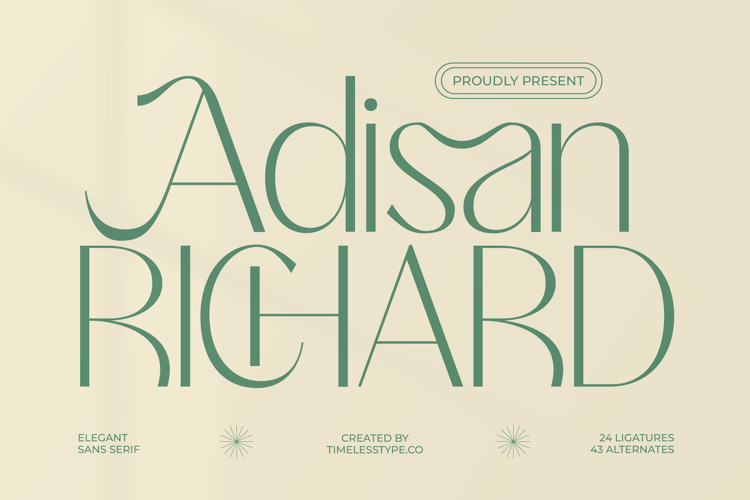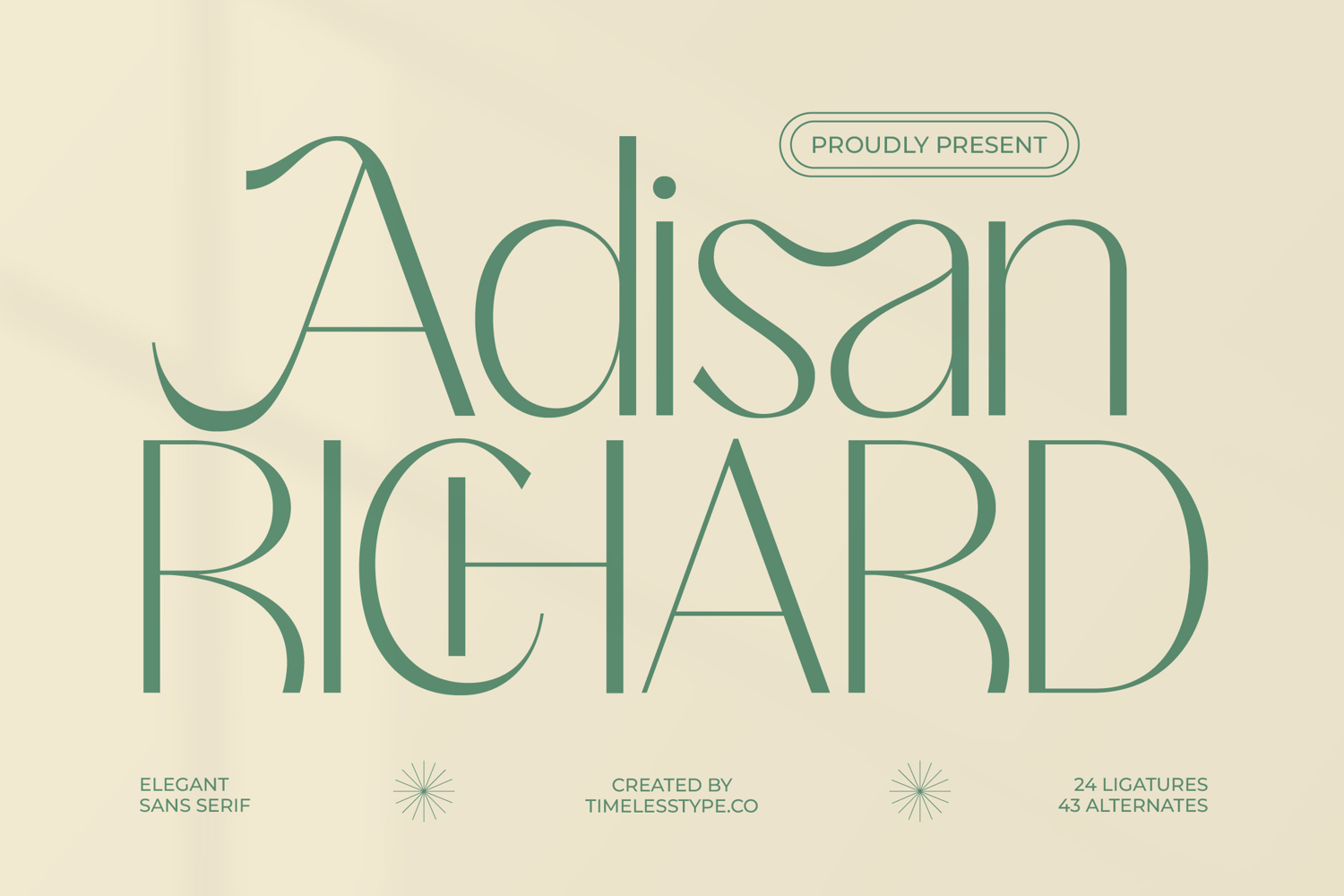
Adisan Richard - Elegant Sans Serif
Elevate your designs with unparalleled grace. Adisan Richard - Elegant Sans Serif is a typeface masterpiece, meticulously crafted to infuse every project with refined sophistication. Its distinctive aesthetic blends the clean readability of a sans-serif with subtle, flowing curves and delicate stroke variations, creating a memorable visual impact. This font exudes quiet confidence, perfect for conveying an air of exclusive luxury and timeless elegance.
Unlock extraordinary typographic versatility. Dive into a world of creative possibilities with Adisan Richard - Elegant Sans Serif, featuring an impressive collection of 24 ligatures and 43 alternates. These expansive OpenType features allow designers to craft truly bespoke headlines, logos, and text with exceptional fluidity and character. Its sophisticated design ensures your message stands out, making it an indispensable tool for cutting-edge visual communication.